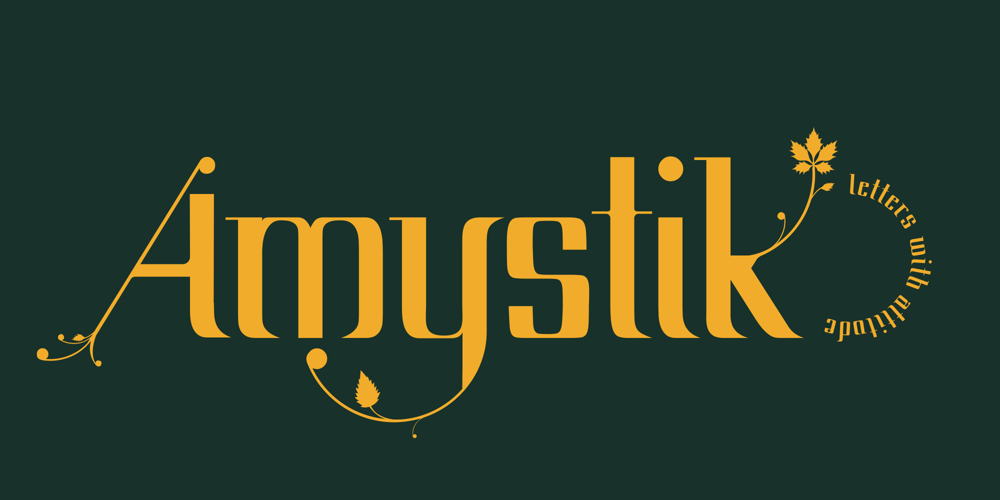
Amystik Font Family was designed by Simone Oberhollenzer and published by Simone Oz. Amystik contains 7 styles and family package options. Amystik is an elegant display serif typeface that blends modern precision with organic, nature-inspired details. Featuring high contrast between bold vertical strokes and delicate serifs, Amystik captivates with its refined curves and decorative flourishes, including leaves and vine motifs. Perfect for branding, logos, and titles, this typeface brings a touch of sophistication and whimsy to any design, balancing both vintage and contemporary aesthetics. Ideal for projects that require a bold, artistic statement, Amystik is a versatile choice for luxury branding, posters, and editorial use.